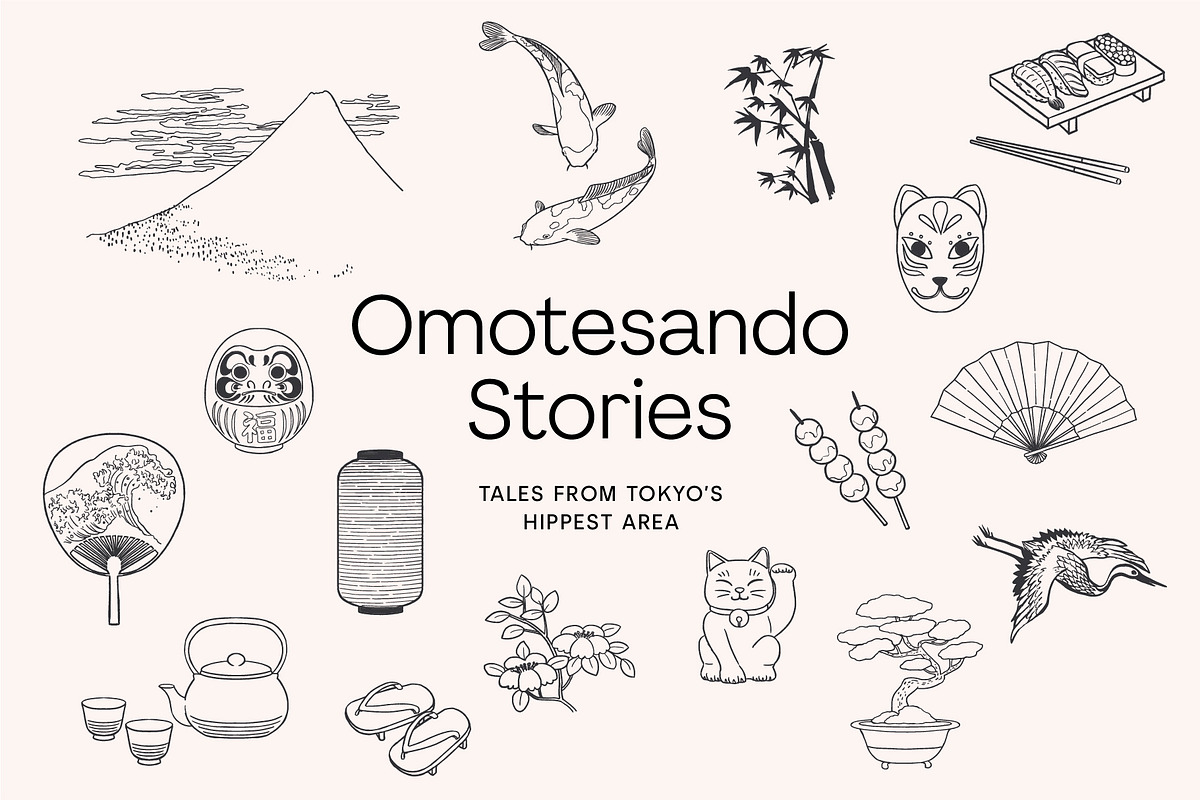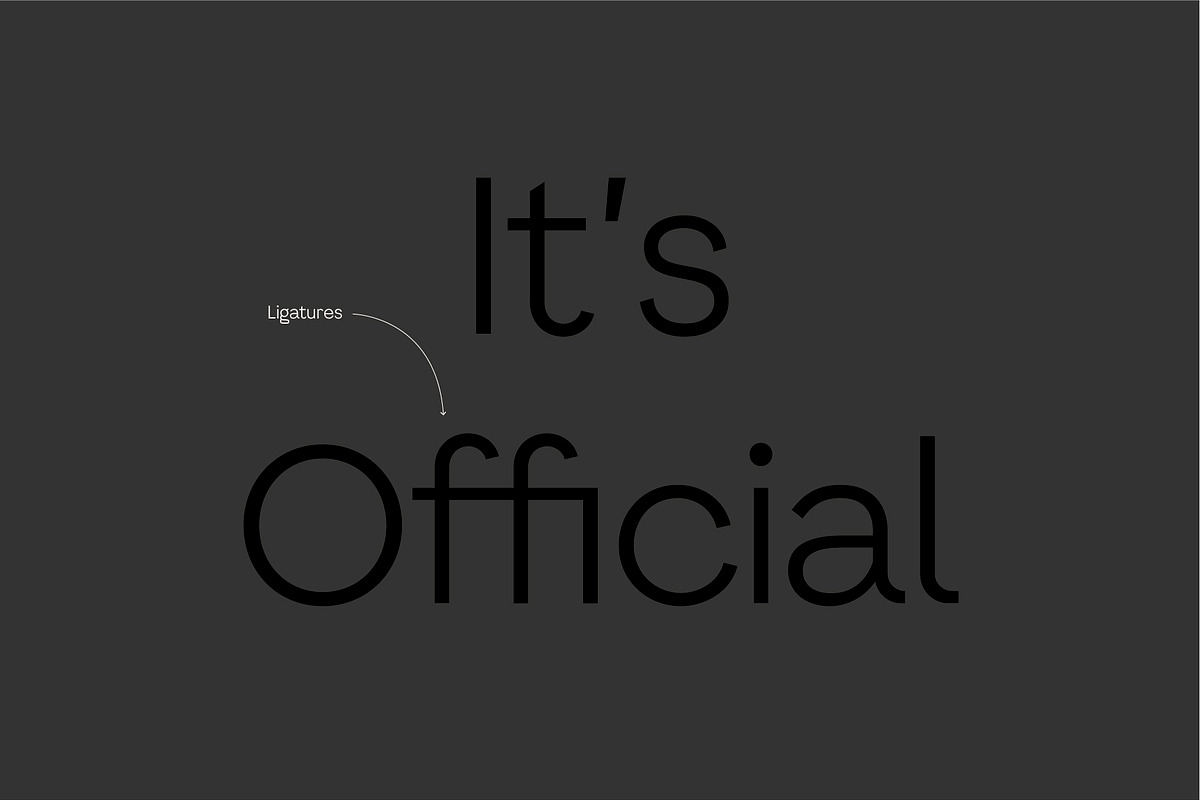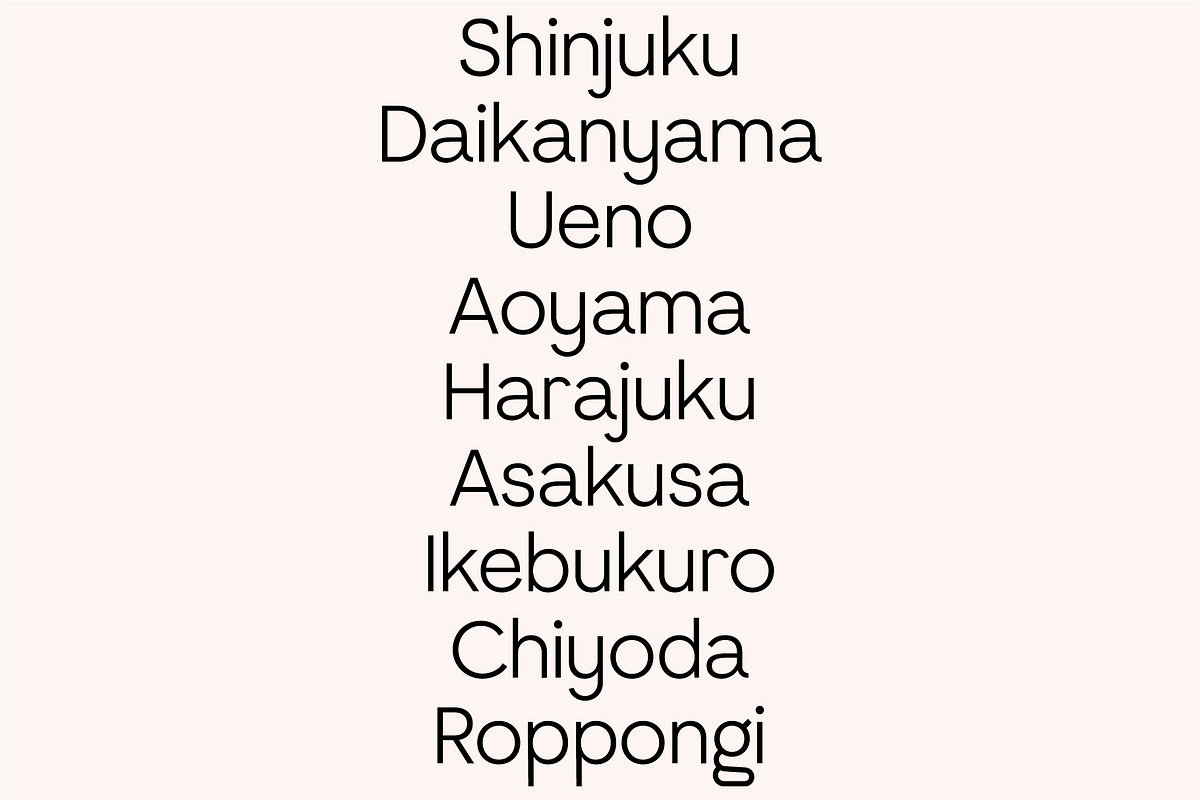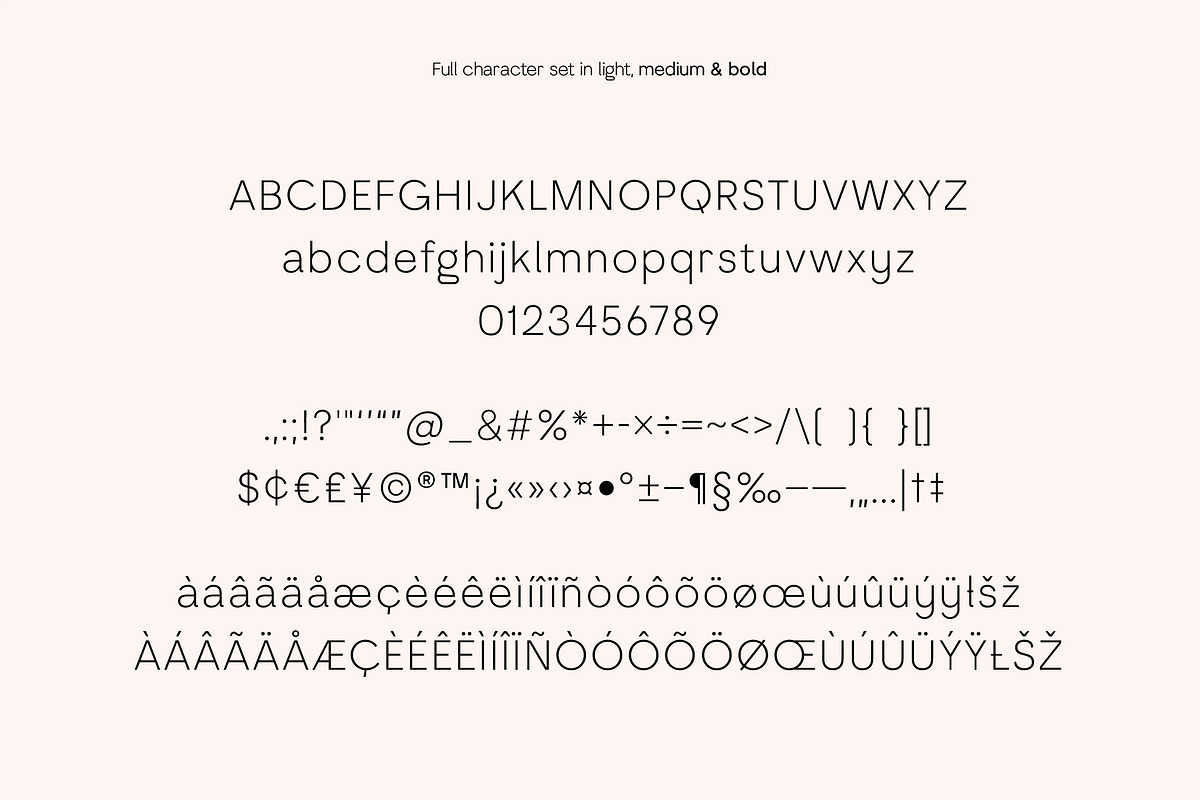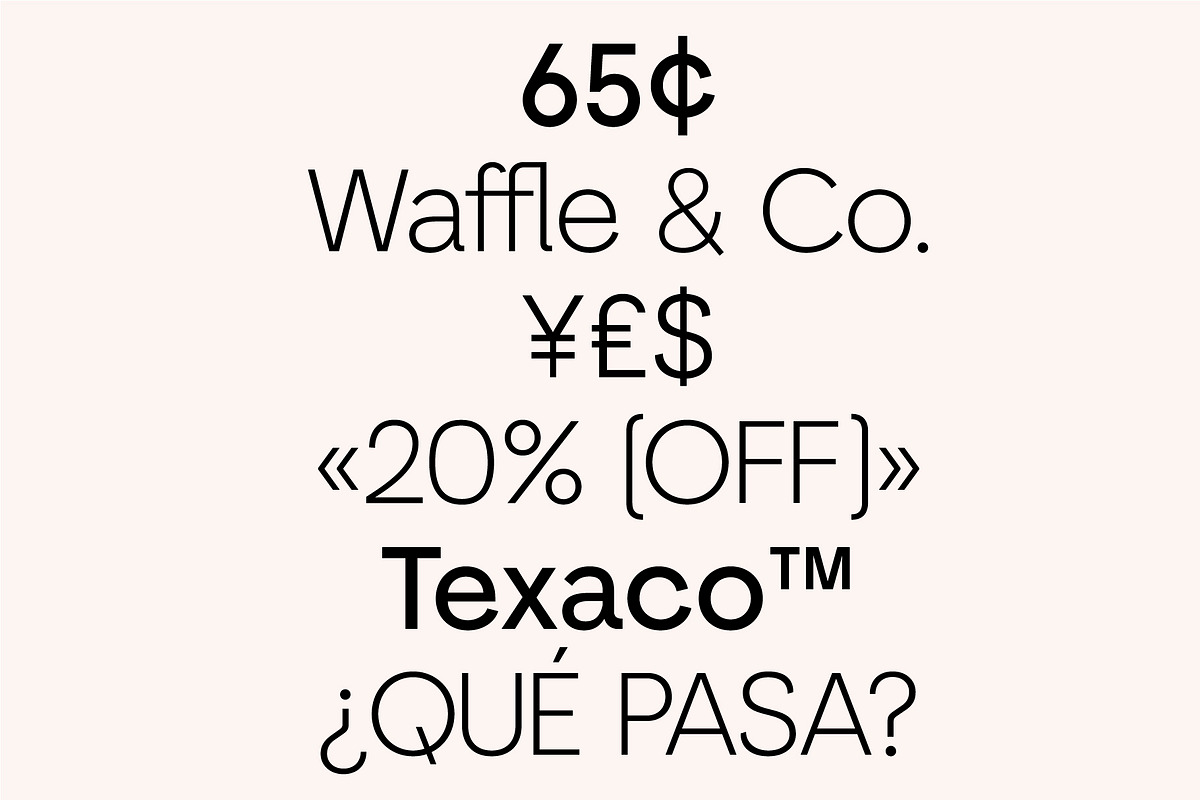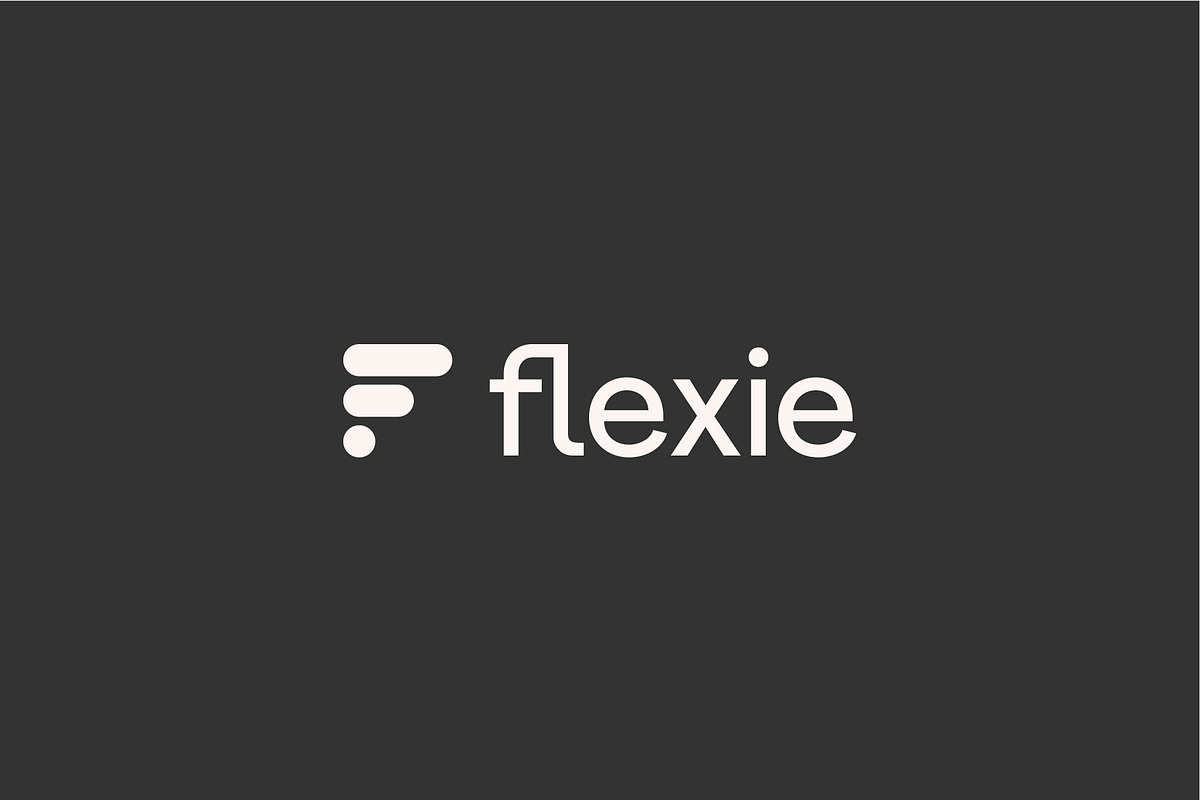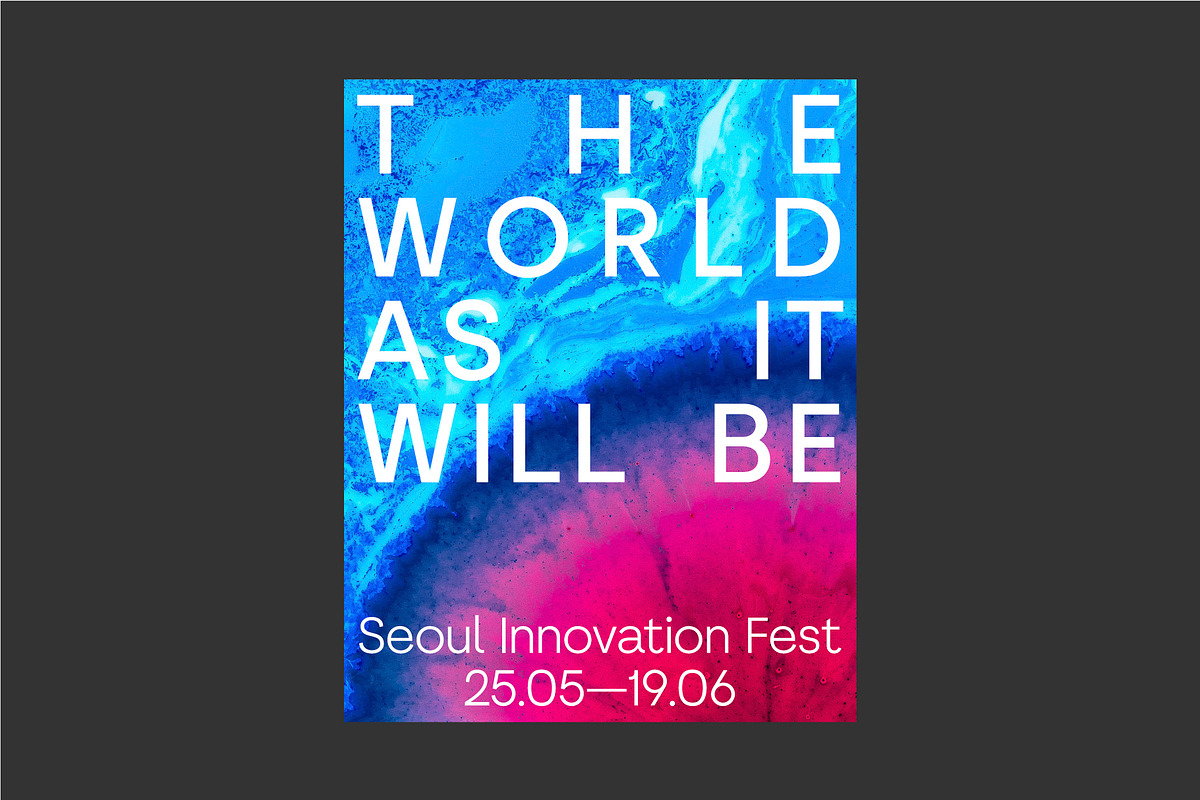
Aurora Grotesk - Sans Serif Font
Introducing our new typeface, Aurora Grotesk - A sleek, contemporary, sans-serif font, that comes in three weights, that we recommend using in the following types of work; magazines (titles and layouts), logos and branding, invitations, quotes, blog headers, posters, and advertising.
Language Support: Afrikaans, Albanian, Catalan, Danish, Dutch, English, French, German, Italian Norwegian, Portuguese, Spanish, Swedish and Zulu.
3 weights: Light, Medium and Bold
Uppercase and lowercase glyphs
Standard and Discretionary Ligatures